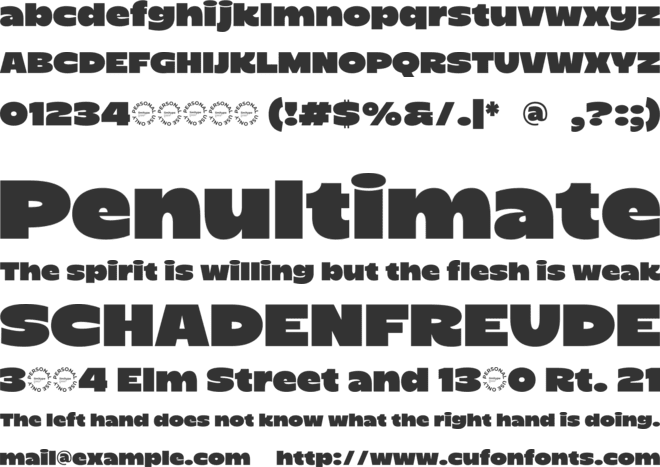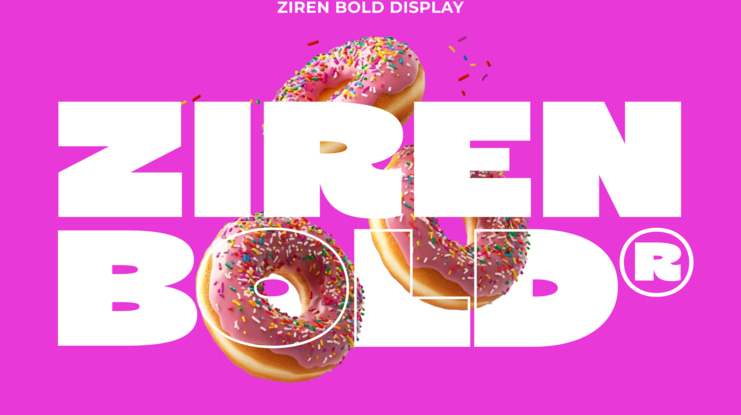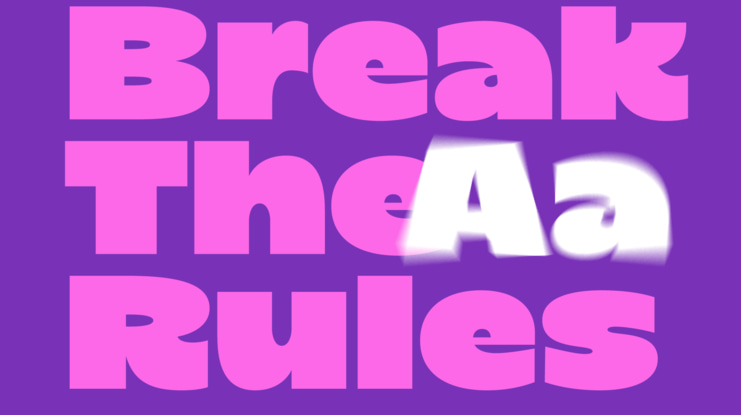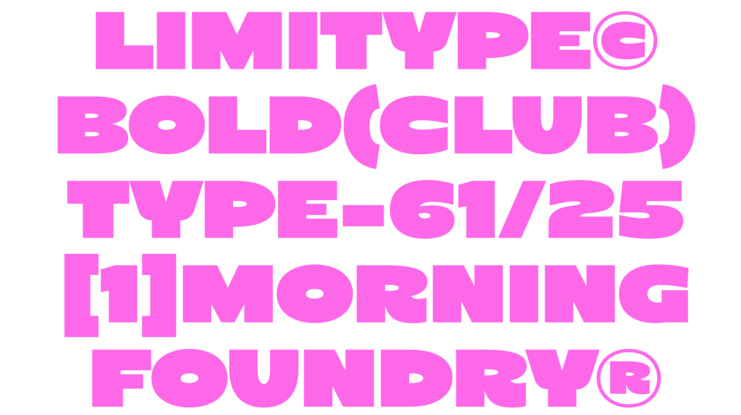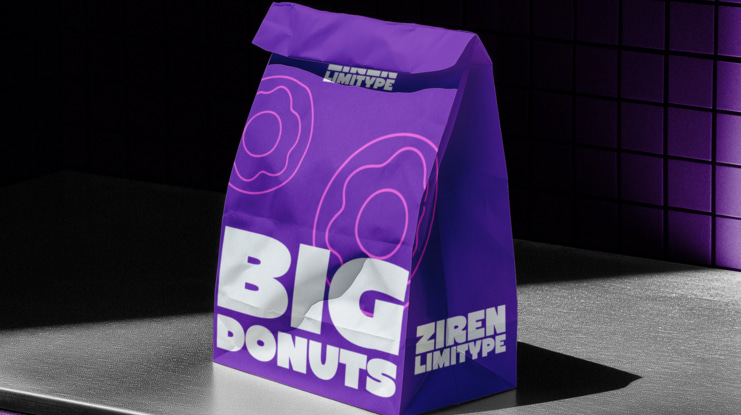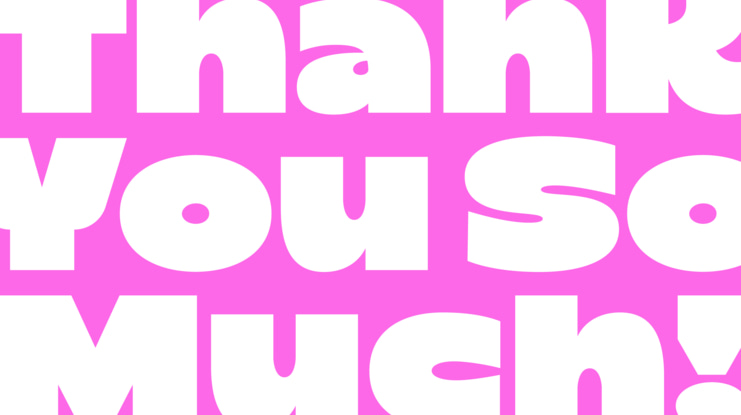
Ziren Bold Font
Ziren is a bold modern display font that highlights strong, confident, and powerful letterforms. With its geometric shapes and sharp cuts, this font radiates energy, confidence, and the courage to stand out. Perfect for headlines, posters, covers, branding, and designs that aim to look bold and full of expression.
Ziren Demo font
Ziren is a bold modern display font that highlights strong, confident, and powerful letterforms. With its geometric shapes and sharp cuts, this font radiates energy, confidence, and the courage to stand out. Perfect for headlines, posters, covers, branding, and designs that aim to look bold and full of expression.